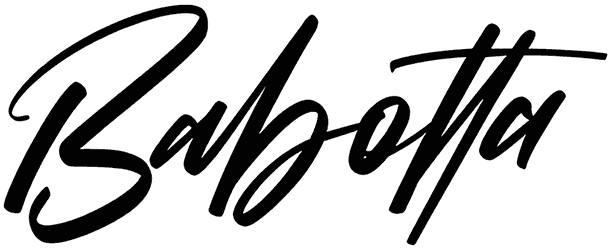
Babotta Font
If you want to use an aesthetic handwritten font in your project, the Babotta font is the right choice. Its stunning design works well for any branding requirement, from product designs and packaging to social media posts and commercials. You will create a truly unique look that will make your typography appear handmade, even though you mention that this unreadable calligraphy font does not support numbers.